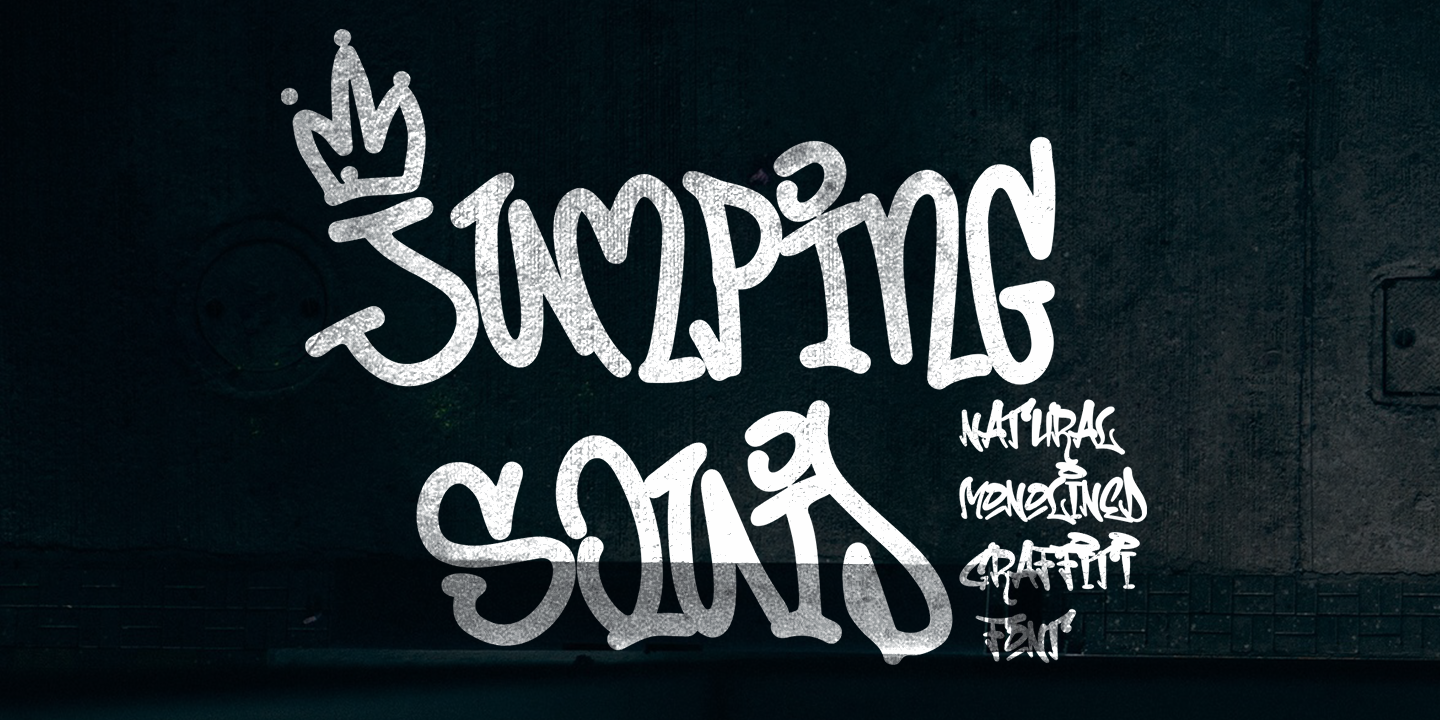
Jumping Squid Graffiti Font is perfect for urban street art projects, marine-themed graffiti designs, underground music promotions, aquatic sports branding, oceanic adventure campaigns, street culture exhibitions, alternative youth marketing, and dynamic underwater-inspired communications.
This explosive graffiti typeface is exciting because it captures the fluid agility and unpredictable energy of jumping squids through dynamic letterforms that combine oceanic movement with street art rebellion in a unique fusion of marine and urban aesthetics.
The Jumping Squid Graffiti Font family includes regular and heavy weights with tentacle-inspired alternates, spray-paint decorative elements, and aquatic street variants that enhance the wild, oceanic atmosphere of any marine street art design project.
Dynamic and rebellious, Jumping Squid Graffiti Font Free Download brings the untamed energy of oceanic creatures to urban street art through explosive creative fusion. This extraordinary font embodies the unpredictable nature and fluid adaptability that defines both marine life and street culture, making it perfect for artists who refuse conventional boundaries between natural and urban inspiration. Its tentacled character reflects the complex movements and surprising agility that make squids fascinating creatures, resonating with creative individuals who appreciate the unexpected connections between ocean depths and city streets. Perfect for marine conservation groups and urban art collectives, this font ensures your message carries the wild authenticity and creative courage that both ocean exploration and street art demand. Whether used for aquarium street art installations or underground marine activism, Jumping Squid Graffiti Font Free Download delivers the oceanic rebellion and street credibility that connects with people who understand that true creativity flows like water and adapts like sea creatures to any environment.